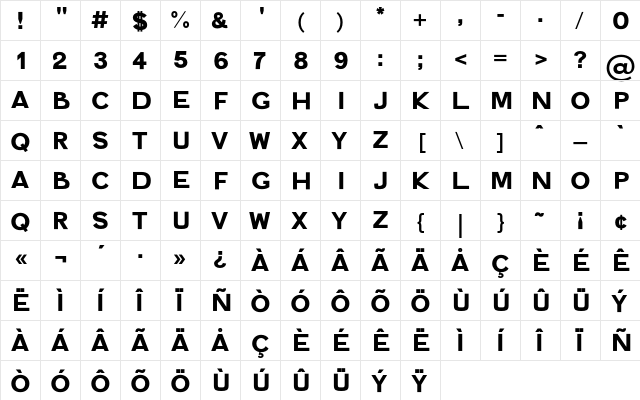
Aux Bold
Design Context for Aux Typeface
Aux is a composed and adaptable typeface that performs quietly and consistently across a wide range of design contexts. The heavy weight commands attention and anchors typographic hierarchies.